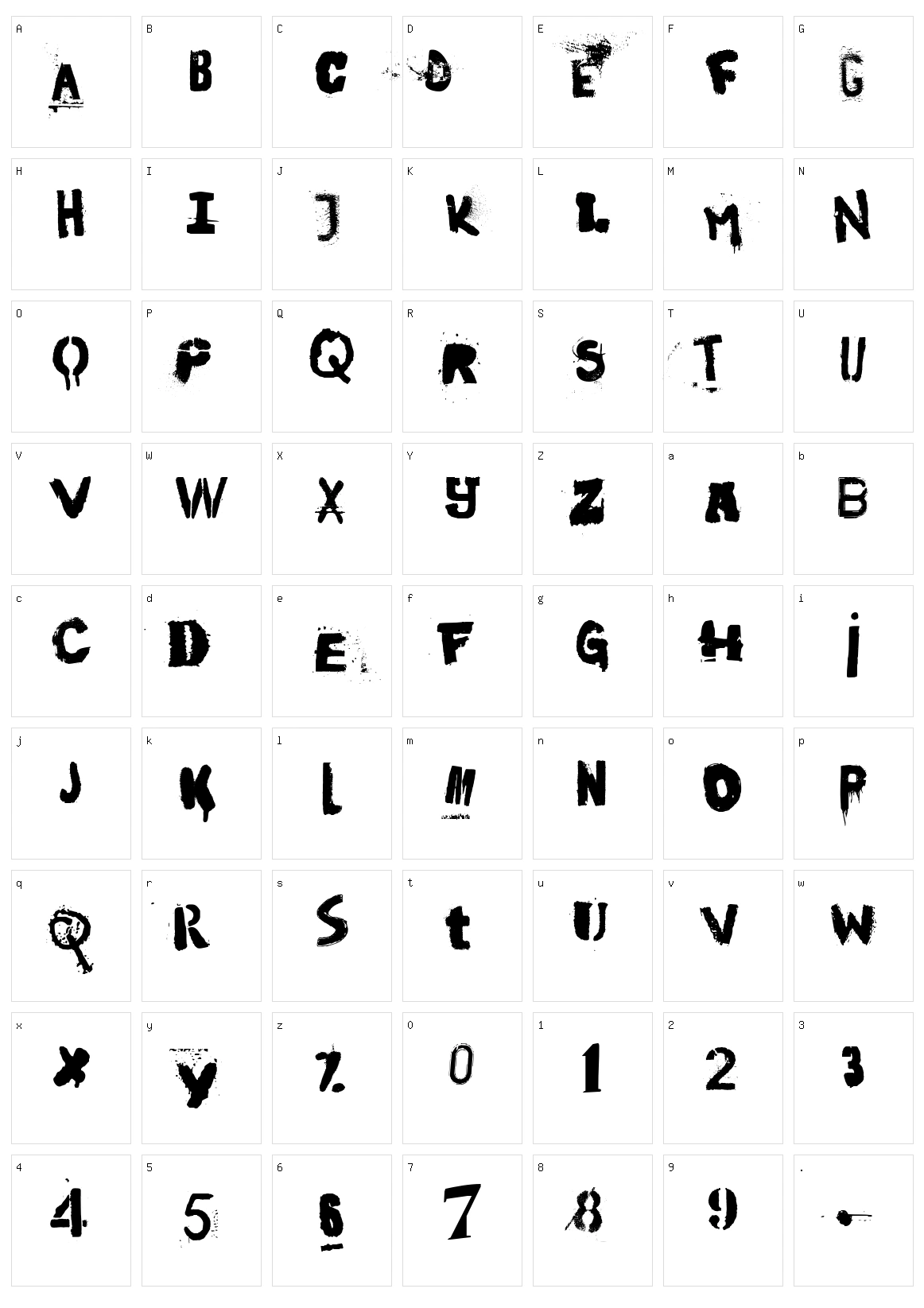
IN THE STREETS OF EUROPE is inspired by many trips all across Europe. Letters are made from graffiti in Liverpool, Madrid, Lisbonne, Sofia, Bucharest and Budapest, demonstrations in Barcelona and Tessaloniki, cars in Sibiu, trains in Belgrade, and a lot more.